Meet Tamara Segura, Fernanda Cozzi, and Krutika Shah. The 2022 Finalists are each at different stages in their type design career, and seek to educate the next generation of lettering artists and type designers.
The Malee Scholarship is honored to announce Tamara Segura, Fernanda Cozzi, and Krutika Shah as 2022 Finalists. We were especially impressed with their talent in type design as well as their commitments to educating the next generation of lettering artists and type designers. Tamara is an avid learner and active member of and contributor to the typography community, including Times New Woman, Letrástica, Typographics, and more. Fernanda runs her own foundry while also teaching workshops and classes for aspiring type designers. Krutika is a communication, user experience, and visual designer who is working on publishing a Gujarati typeface. We are honored to recognize the three of them as Scholarship Finalists, and are excited to see how they flourish and enrich our community.
Tamara Segura
Tamara Segura is an aspiring type designer and letterer. She was born and raised in Mexico City. Her love for letters began early in her life when she drew birthday cards and signs for school presentations. She received her B.A. in Graphic Design and proceeded to study Type Design for a year at Centro University. She has worked as a graphic, branding, and packaging designer for local and global brands at different agencies, while pursuing her dream of becoming a full-time type designer and letterer. She graduated from the Type@Cooper Condensed program and Type West in 2021. Since then, she has been active in the type community as part of the Times New Woman and Letrástica. In 2021 she spoke at Typographics’ TypeLab and participated in the Alphabettes Mentorship Program.
When did you first get interested in letterforms?
My fascination with letterforms began early on in my life. I’ve always been an avid reader, so letters were often an important part of my daily life. I loved decorating and doing the titles for my elementary and middle school presentations. Whenever an opportunity presented itself to draw letters, I’d take it: Valentine cards, gift tags, notebook covers, birthday signs for friends.
In my last year of high school, I was not sure about which path I wanted to take career wise. I don’t think I even knew graphic design was an option. When the time came to decide, I found the program for Graphic Design at a University close to my home. The program checked a lot of the boxes for what I thought I could be good at and it also had a wide range of classes I believed could help me specialize in something later on. During my second semester I discovered that typography was a branch of design, and a few semesters later, I found out there was a group of people who drew letters for a living: type designers. With this realization, my career plans shifted. Even when I was enjoying other aspects of graphic design, type design never really left my mind. I started to take lettering and calligraphy workshops, which was the turning point for me. I had been telling stories with letters for most of my life, so why wasn’t designing those letters from scratch the better option?
“I had been telling stories with letters for most of my life, so why wasn’t designing those letters from scratch the better option?”
How does your background and community shape who you are as an individual and designer today?
I believe who we are influences everything we do in life, what we like, what we do, even what and who we love. Who we are is not crystal clear most of the time, but the journey we took to get us here has shaped much of that. Being a Mexican designer has made me look at the world differently. Mexico is a place full of colors, culture, history and diversity, traditions and celebrations. But in order to see the good, you also have to look at the bad — the injustice, crime, inequality, misogyny, privilege. As someone who communicates I have to know where I stand, so I can do better as a person, as a woman, and as a creator. Especially as a type designer, I think I have a responsibility to use letters to pay tribute and to take part in whatever happens around me and in the world we live in, to be part of a voice that fights for something bigger. Being a member of different communities has taught me that we are all a part of a greater whole. We are each trying to find our way through life. It is not an easy path, but we can make a difference and also inspire others.
Tell us about your typeface, Atropos. What were some of the challenges?
Atropos has been one of the most rewarding experiences of my short career. It was not the first time I worked on a revival, but it certainly was the first time I did it very consciously and intentionally. I worked on Atropos during my first term at Type West ’21, with a bit more knowledge of how to approach a revival project. The pandemic was still ongoing and going into a bookstore to find a source was diffiicult. I knew I had to find a source text that spoke to me strongly enough so I could look at it everyday for a few months. When I looked at “Typefaces / type designers before 1920”, I realized all of the designers I knew from that time period were male. This sparked something in me, since women have been a part of the type industry for a couple decades now, so how was it possible that they weren’t around before the 1900’s? When I searched “women type designers before 1920”, only an article from the Alphabettes blog popped up. There were only two, three names I could use, and I learned of Hildegard Henning, the first woman credited with the design of a typeface called Belladonna.
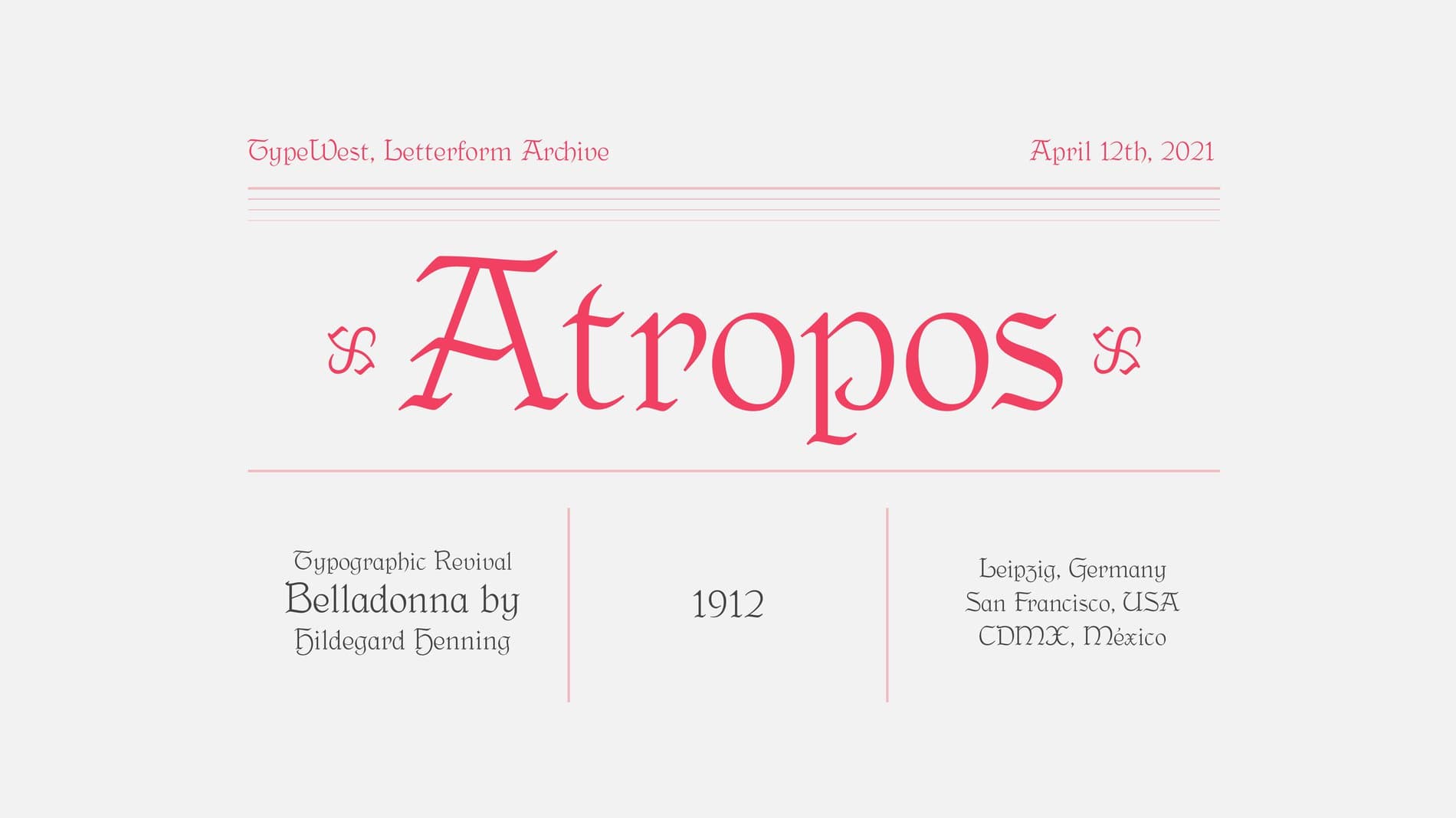
I started researching Henning, who I figured had to have more than a few lines in an article about what she did. But I only found a few paragraphs here and there, and a one-page specimen from the Klingspor Museum. This wasn’t necessarily what I needed for the assignment, but I was so moved by this information that even with an incomplete character set, I wanted Belladonna to be my revival project. I also found a small thread on Twitter between María Ramos and Lauren Elle DeGaine who were talking about the metal type for Belladonna, a photo of a specimen she printed herself. I managed to get in touch with Lauren and found she was working on her now-published thesis about Women in Type in the 20th Century. With her help, I got good sources and references.
I learned not only about type design, but about the role and names of women in type from this project. They paved the way for all of us who are trying to work in this industry. It is important to see historical figures, because they can teach us about what we still need to do in our present and future.
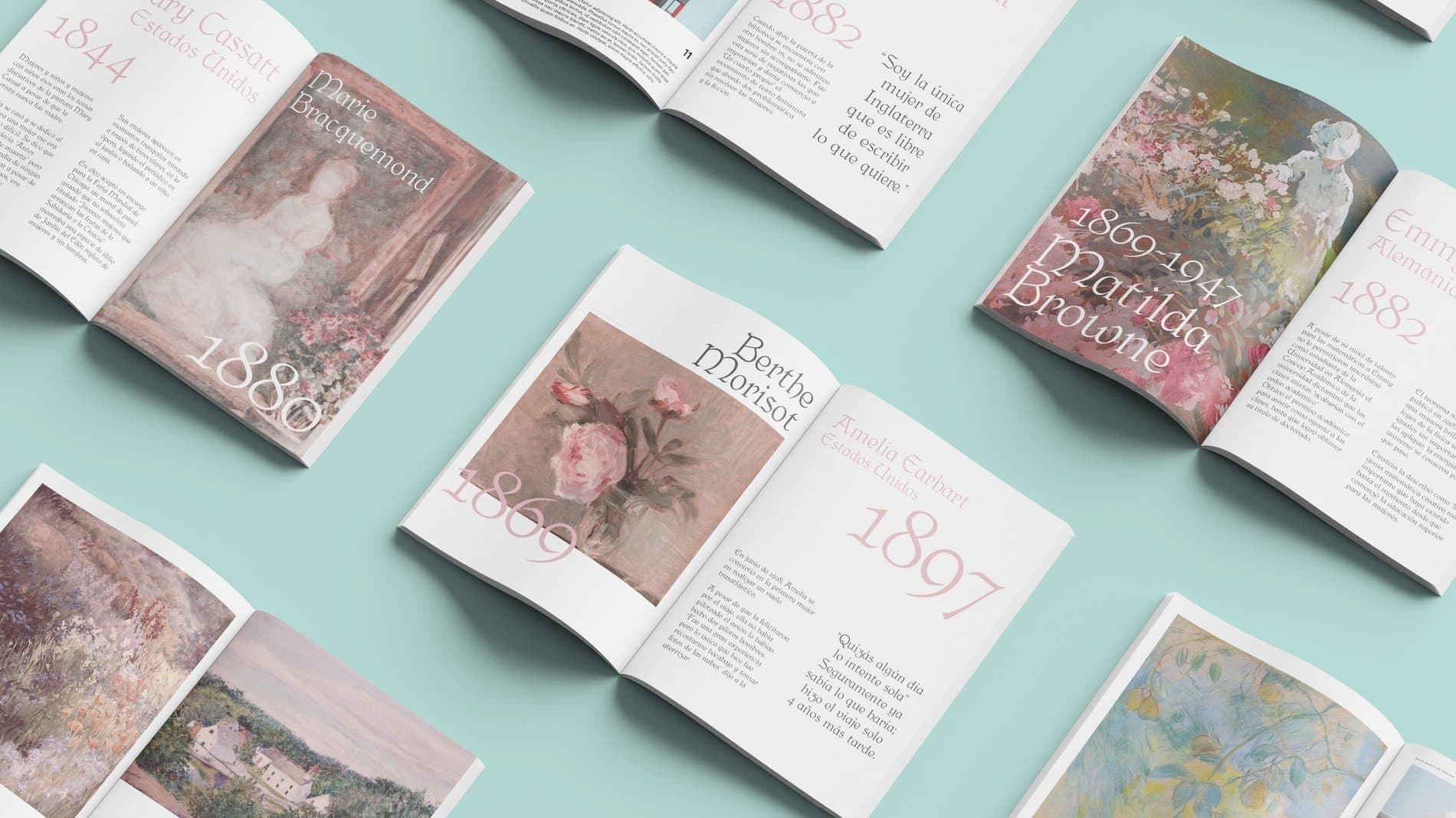
You have grown so much as a designer in the last few years, what experiences have led you to your type practice today?
The past two years have been a complete 180 for me. I've had many experiences and opportunities that I don’t even know if I can name them all. But defining what I want to do and what I love has been life-changing. In 2020, I participated in the Alphabettes Mentorship program and I began developing a font called Mercado which is inspired by Mexican culture. This personal project continued on with support and feedback from the Malee Scholarship Mentee program. I was also granted one of the BIPOC scholarships for Juan Villanueva’s Display Type Design class in the fall of 2020 and designed Xóchitl, which was a typeface once again inspired by my neighborhood Xochimilco and a tribute to the festivities and fairs celebrated here. It was a tribute to the festivities and fairs in my neighborhood. 2021 was really challenging because I got accepted into Type West, and later on into Type@Cooper Condensed. I’ve gained so much from all of these opportunities and have become a better designer as a result.
What’s next for you?
There are lots of exciting changes happening that are keeping me busy. I have moved to a new city and country, in Sydney, Australia and am slowly trying to build my social and professional life. As for my type design work, I am working towards completing the design and font production of my first Gujarati typeface, which is yet to be named. The goal is to publish it soon, work on more typeface design projects, and eventually be able to build a sustainable career in type design. I am determined to create new avenues for my growth in the type design industry by proactively seeking opportunities of collaboration and mentorship, like the Malee Scholarship. For my overall design career, I want to continue to challenge myself and grow into a more versatile designer by exploring new emerging design fields. With my recent move to Australia, I am excited to experience and find my place in the design industry.